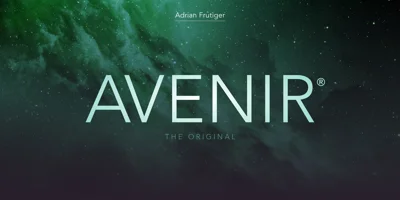
Avenir Font
Avenir Font is a classic geometric sans-serif typeface known for its clean, modern design. Designed by Adrian Frutiger, Avenir offers excellent legibility and versatility, making it ideal for a wide range of design projects such as branding, editorial layouts, websites, and signage. With its harmonious letterforms and balanced proportions, Avenir Font strikes the perfect balance between modernity and timelessness.
With Avenir Font, you’ll receive a complete set of uppercase letters, lowercase, numbers, and essential punctuation, making it versatile for both print and digital applications. Whether you're designing a corporate identity, working on a sleek website, or creating professional marketing materials, this font ensures readability and adds a sophisticated, contemporary touch.